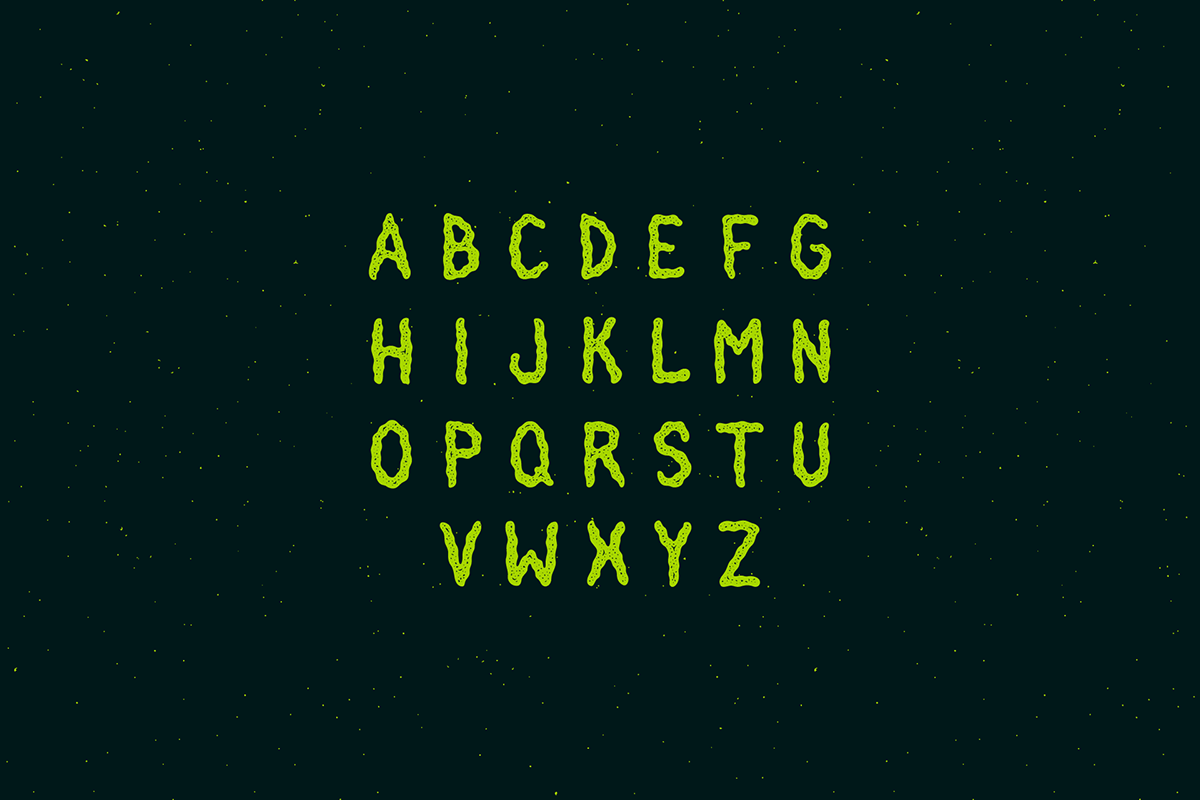
Swumpy Grungy Font Family is a grungy handmade font family by TimXez. It comes in 3 variants: Sand, Clean and Dirt, contains all caps letter, numbers and symbols, supports Latin and Cyrillic languages. Swampy typeface is great for crafts, short titles, logotype, greeting cards, apparel, advertising, fun designs, branding, posters, headlines, t-shirts and apparel, packaging and more.
Swampy Clean
Swampy Dirt
Swampy Sand